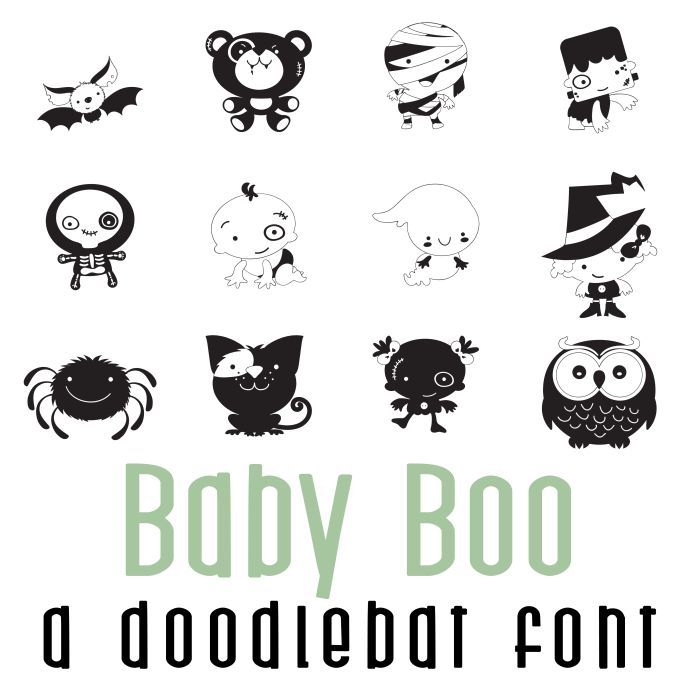
This doodlebat font features 31 adorable baby Halloween monsters perfect for Halloween, classrooms, teachers, gifts, decor, scrap book pages, planner stickers and more!. Perfect for cards, crafts, gifts, decor, scrapbook pages, planner stickers, classrooms and more! Glyphs are A-Z, 0-4 for 31 unique glyphs.